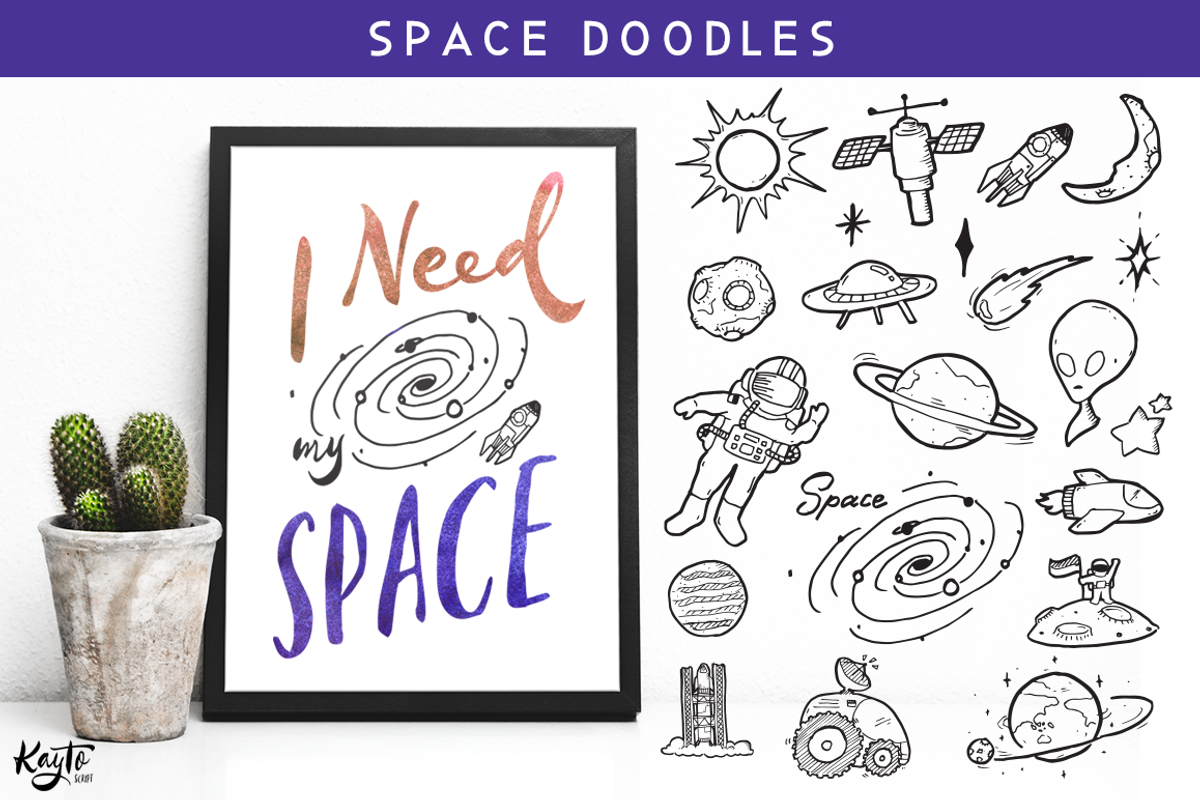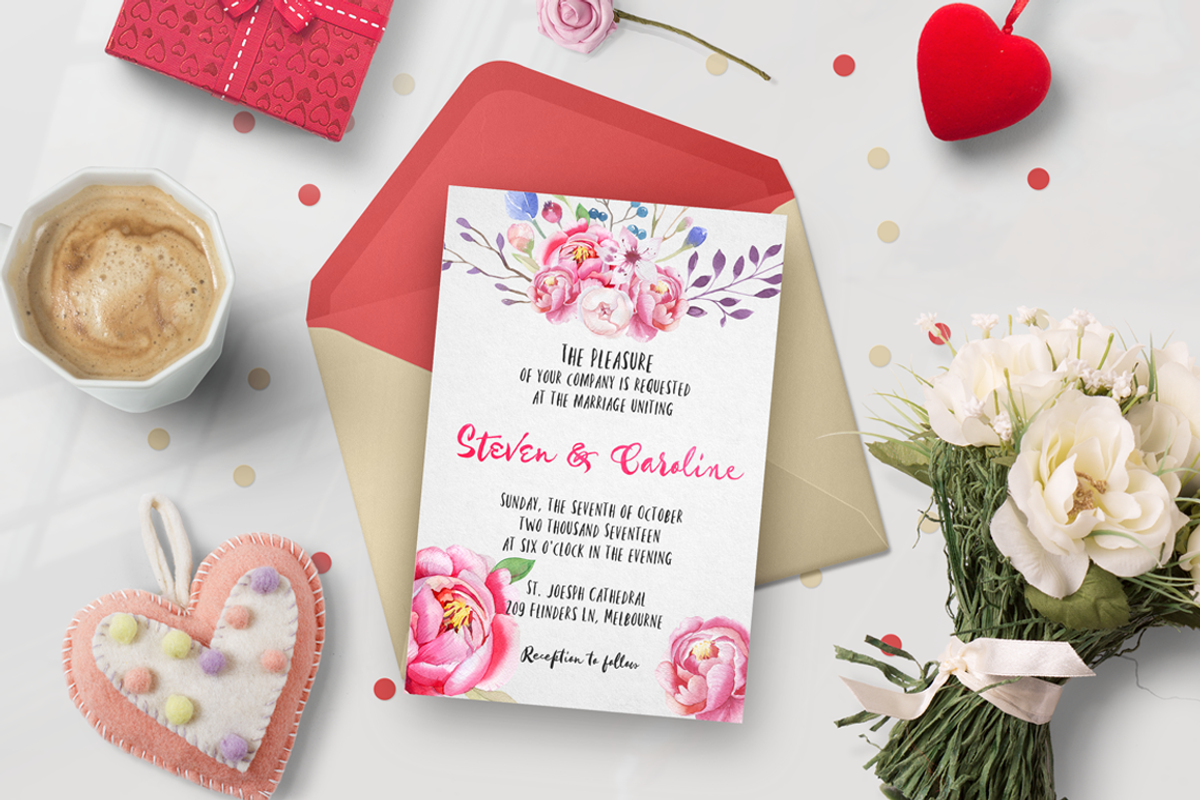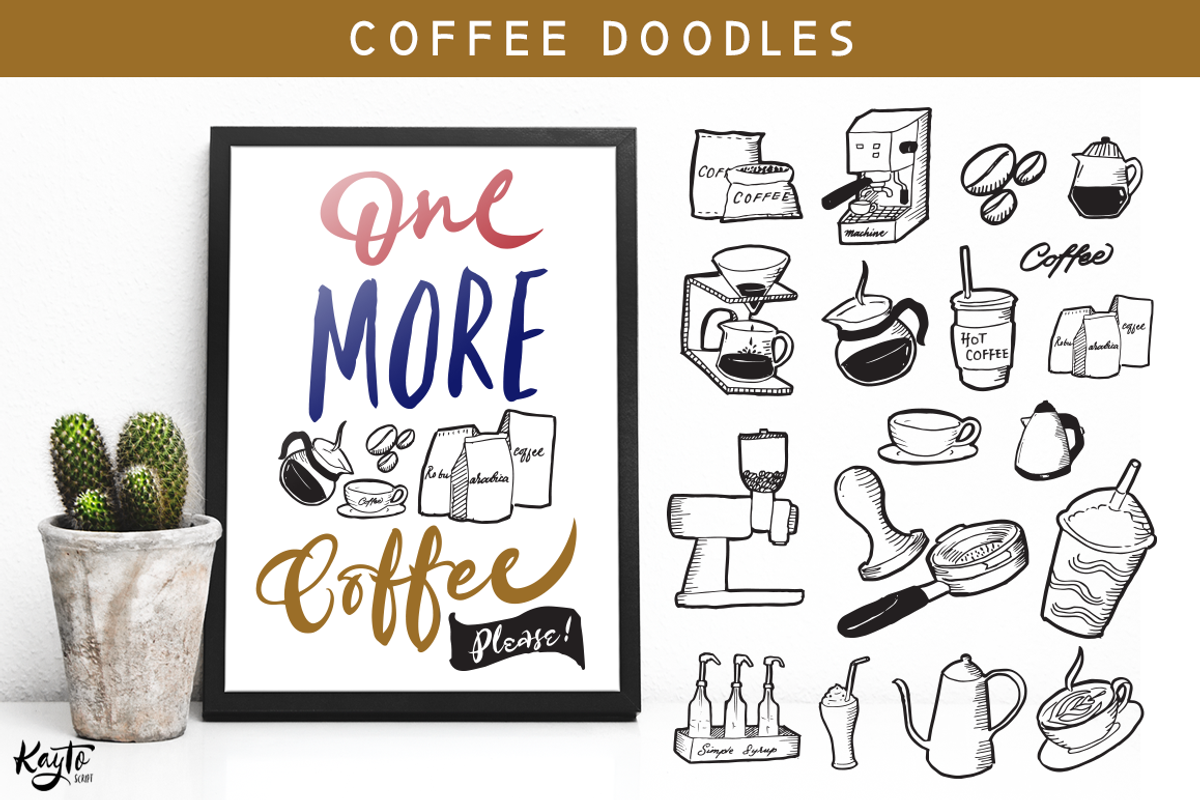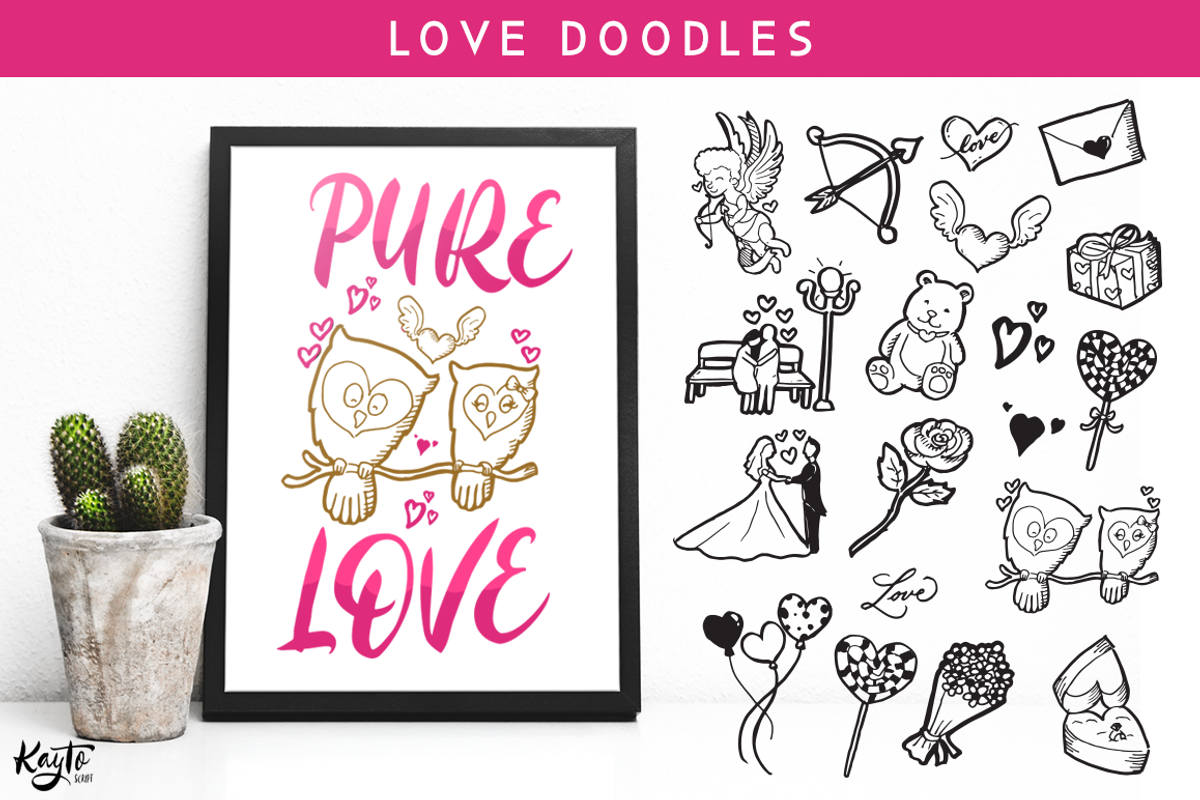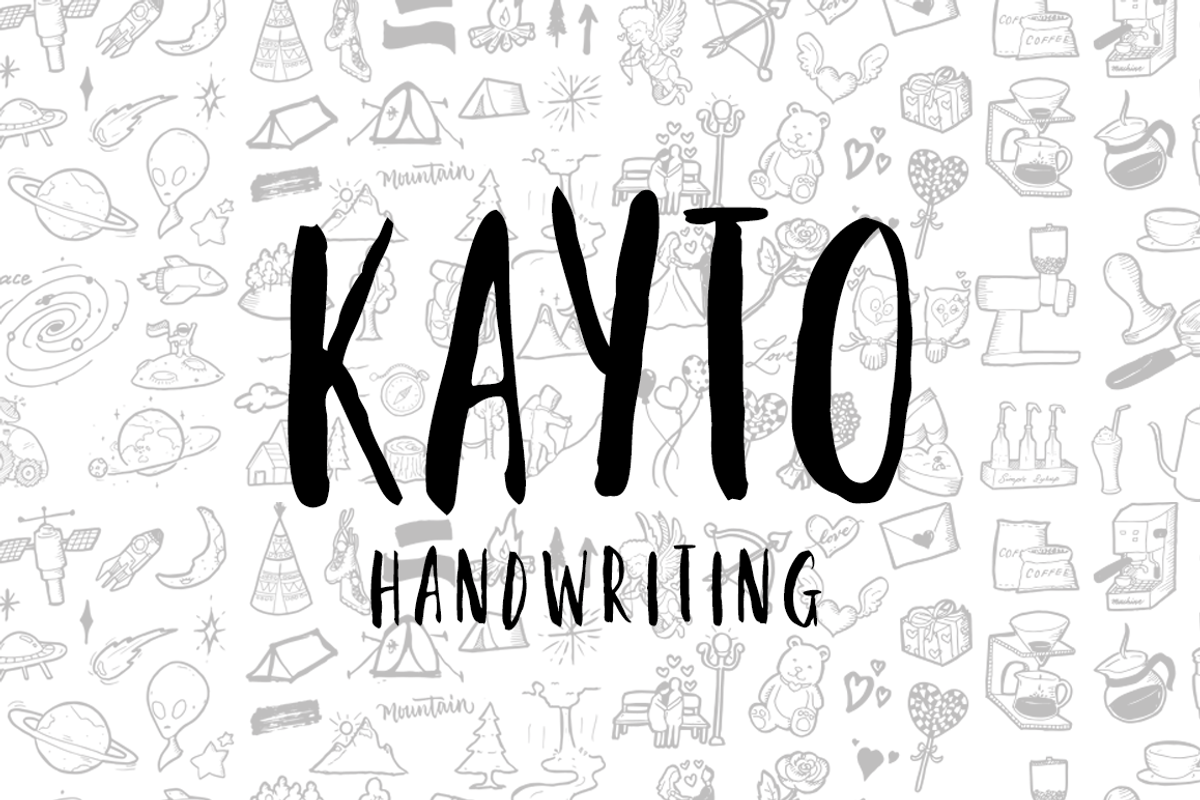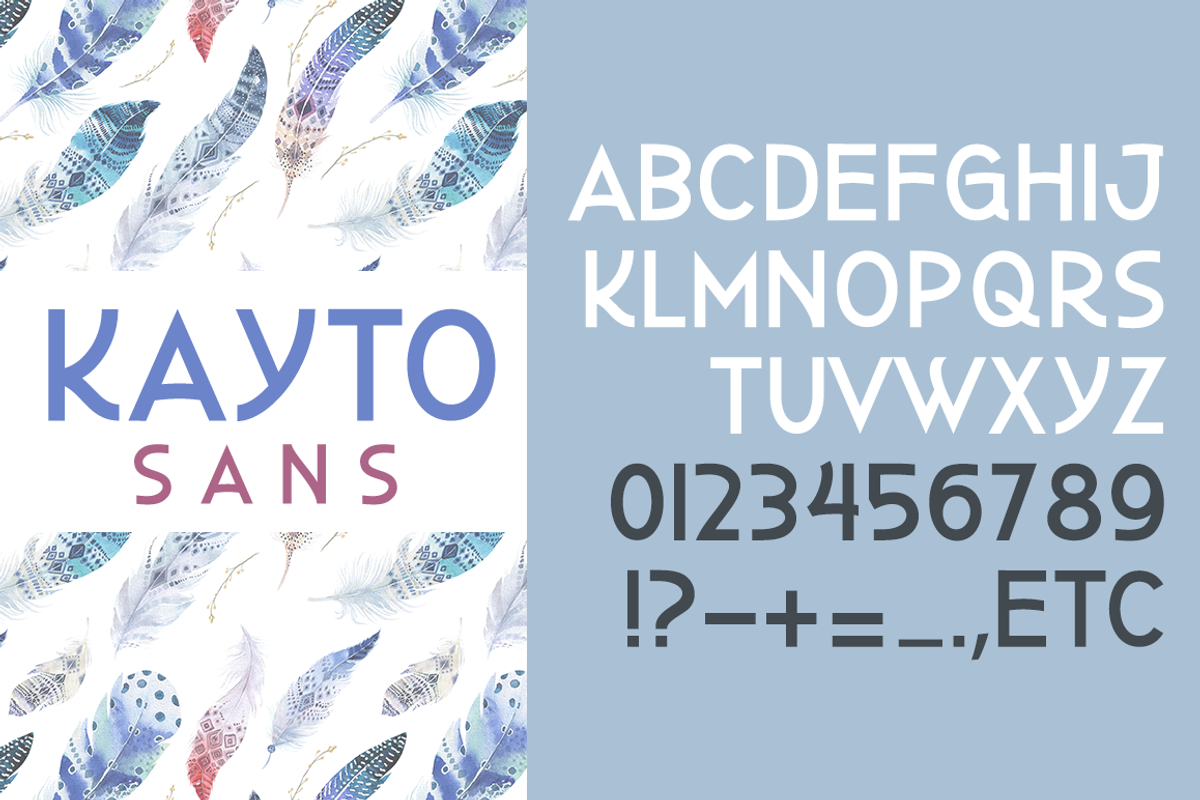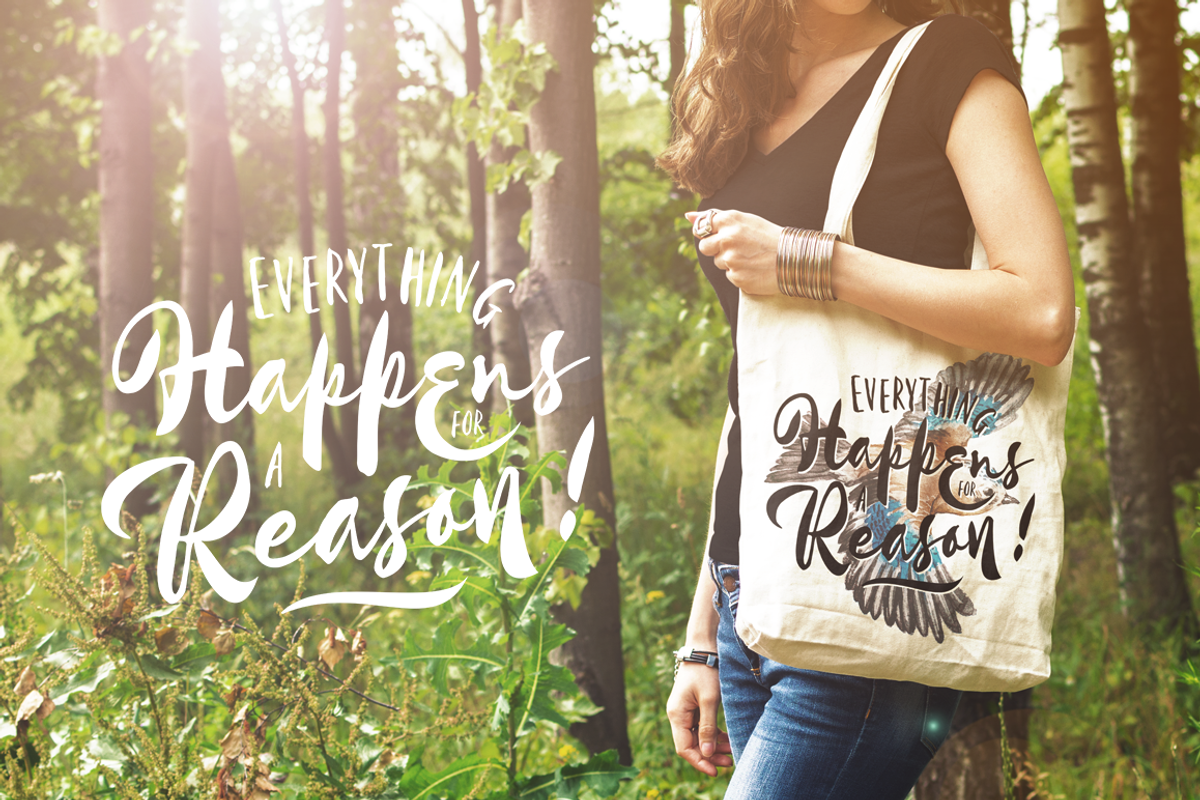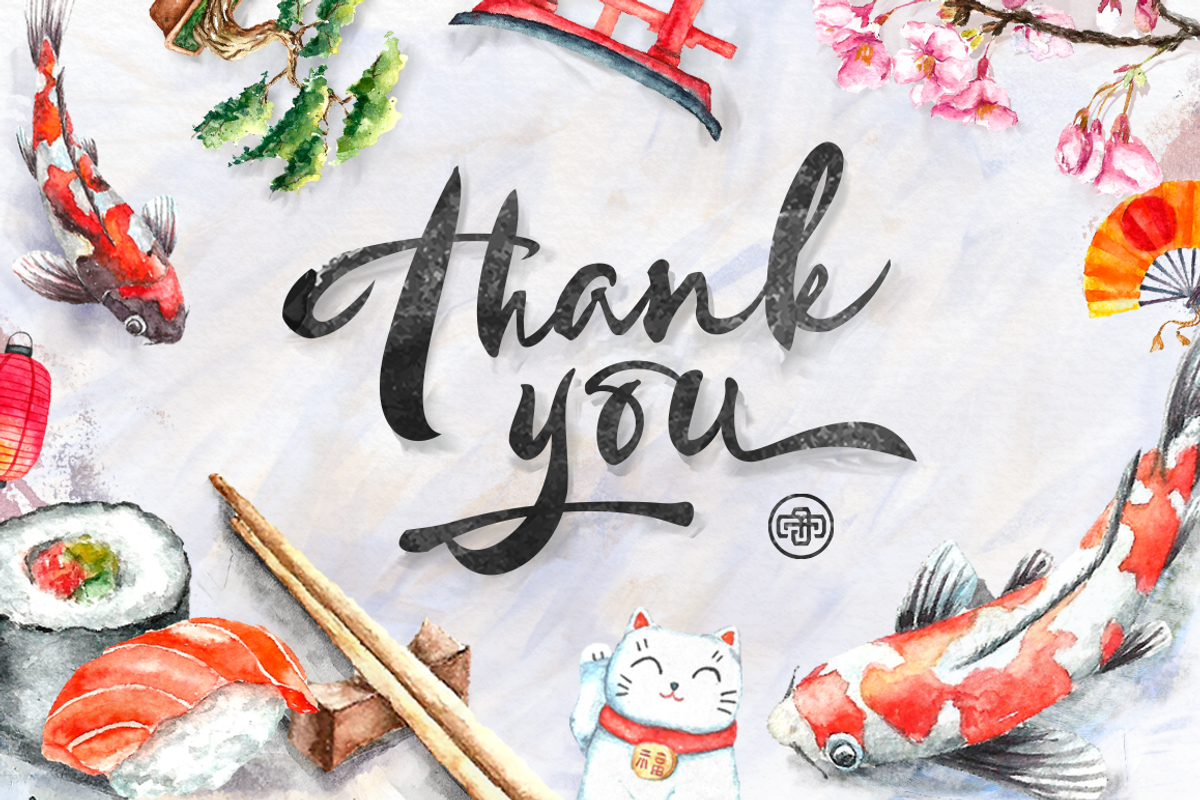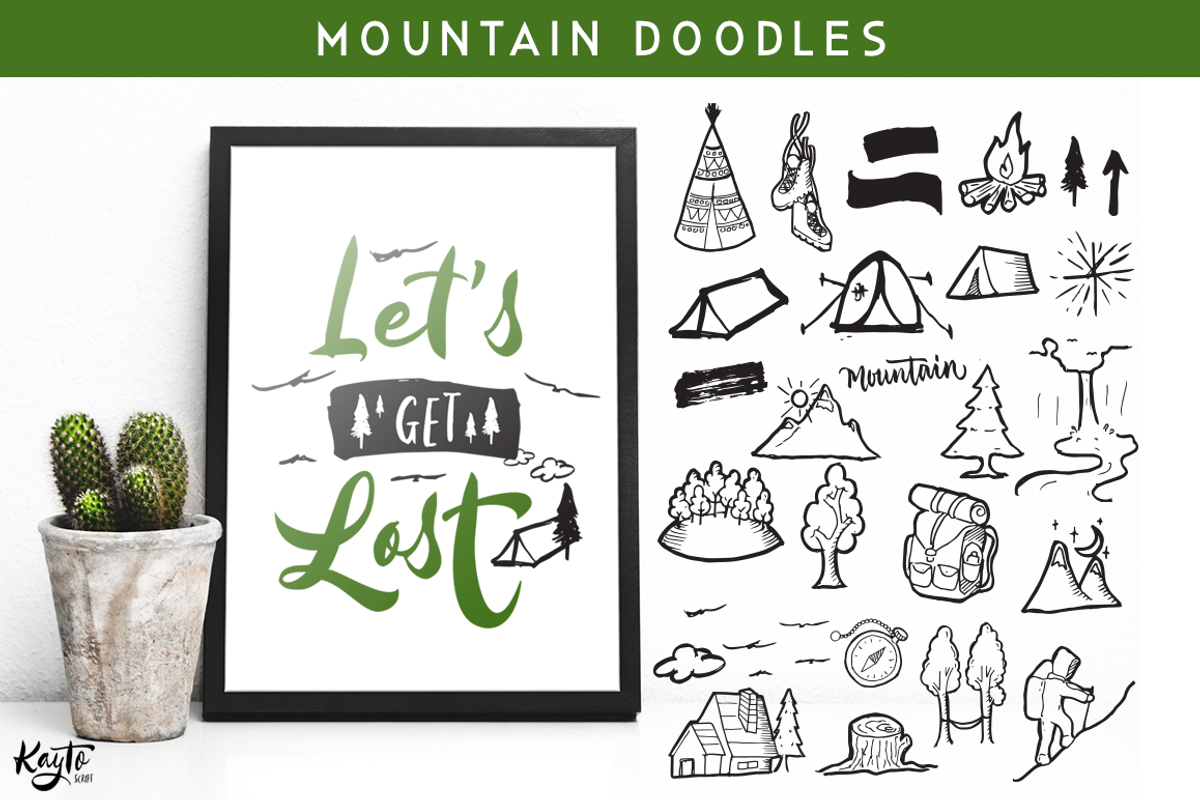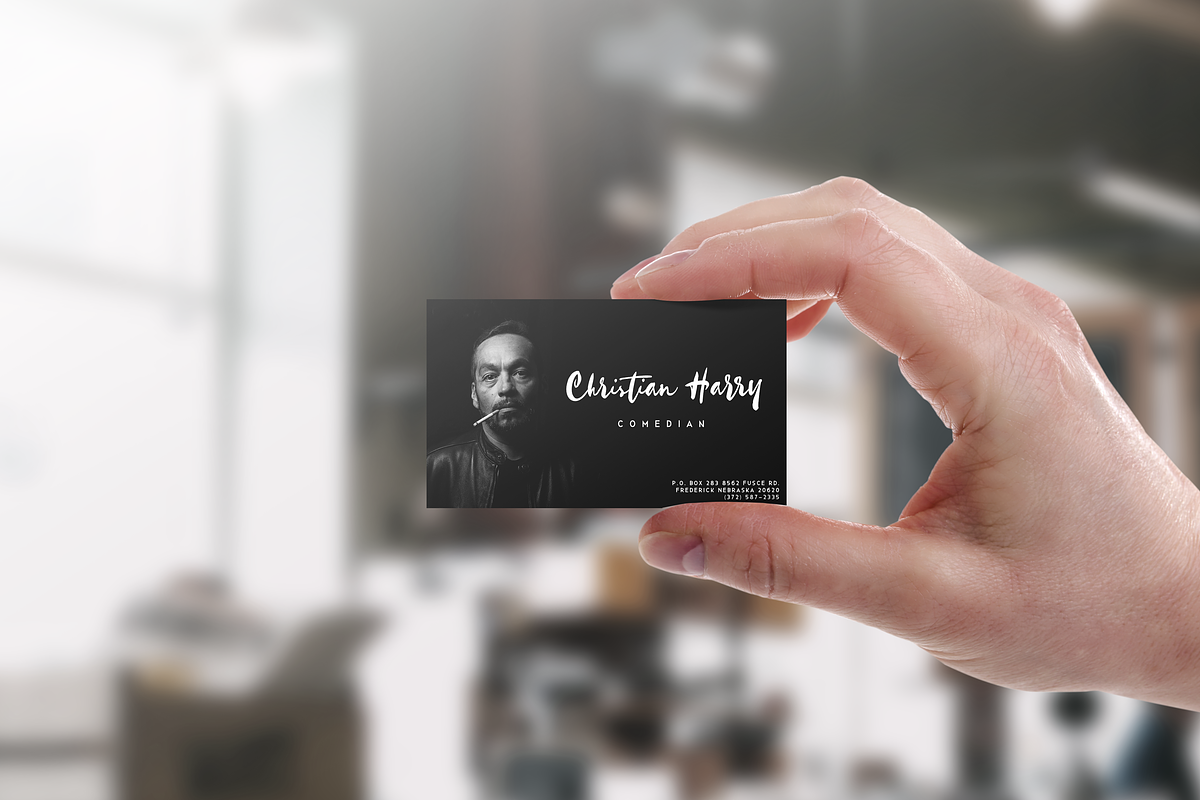
Kayto - Calligraphy Font Bundle
Kayto Script is the second collaboration of Erwin Indrawan as the calligrapher and Dexsar Harry Anugrah of Majestype as the typeface designer.
Today the resurgence of calligraphy has reached the summit, with social media as the vehicle, we are now familiar with many styles of calligraphy. One of the popular styles is brush lettering, especially the pointed brush calligraphy.
Kayto Script is an exploration in pointed brush calligraphy. It’s an interpretation of modern brush calligraphy that combines cursive writing with the East Asian calligraphy flair.
Kayto is made with a real brush and held perpendicular to the paper so the brush can twist and turn freely to follow the movement of the hand. This technique gives a natural gesture and energetic look to the strokes.
Kayto has a unique rhythm of brush pressure to generate the thick-and-thin strokes.. the beating heart of brush calligraphy. Instead of the mechanical thick-and-thin strokes like the regular calligraphy, Kayto is written with a lot of variety of pressure that is somewhat melodic but still conform with the discipline.
The result is a script that feels personal and characterized with lively energy. And just like handwriting, every letter in Kayto script is crafted with many varieties of glyphs and ligatures to make an unlimited combination of personalized lettering.
Because of its natural letterforms, Kayto Script is best suited to complement anything that is earthy or has nature as the ground. Erwin, the calligrapher, has used Kayto in many of his watercolor illustrations. Another ideas are wedding names on invitations or place cards, logo for any natural products, inspirational quotes, business cards and the list goes on.. but in the end, if you wish for something personal and truly one of a kind then Kayto script the one you want.